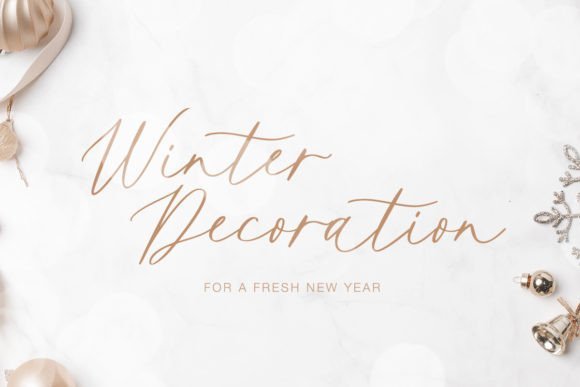
Introduction to Adore Stacy Font
Adore Stacy is a beautiful handwritten script, featuring a fluid and flowing style with a touch of love.
This font is based on brush lettering and has a natural, expressive feel, making it suitable for any design project, especially wedding invitations This font also adds sophistication and elegance to any design and can be used to create a handwritten look without the time and effort of actual calligraphy.
Key Features of Adore Stacy Font
Why Choose Adore Stacy Font?